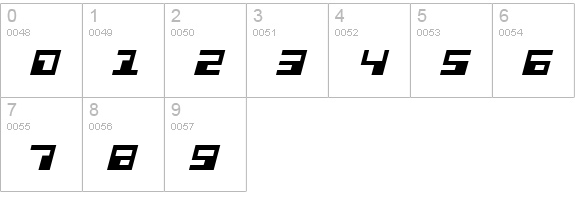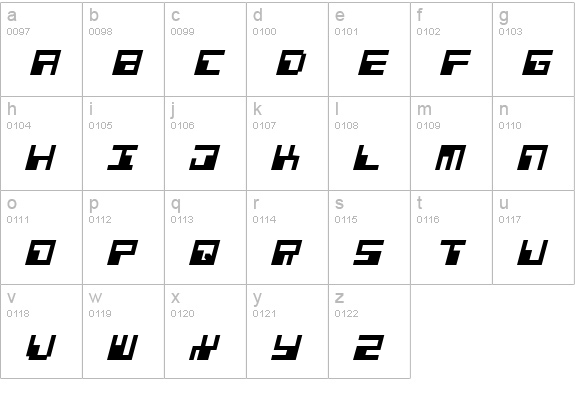
Phaser Bank Bold Italic is a strong, high-contrast, italic variant in the Phaser typeface family \xE2\x80\x94 well suited to headlines, attention-grabbing titles, and strong calls-to-action.
Introducing Phaser Bank Bold Italic font, a captivating and dynamic typeface that exudes modernity and sophistication. With its sleek lines, sharp angles, and bold strokes, this font is perfect for creating eye-catching designs that demand attention. The bold italic styling adds a touch of elegance and flair to any project. But the best part? Phaser Bank Bold Italic font is absolutely free to download! You can get your hands on this stunning typeface at FontsMarket.com and start using it in your designs right away. Whether you're working on a branding project, a website design, or any other creative endeavor, Phaser Bank Bold Italic font will elevate your work to new heights. Don't miss out on this fantastic opportunity to add a touch of style and sophistication to your designs with this striking font. Download Phaser Bank Bold Italic font today and let your creativity shine!